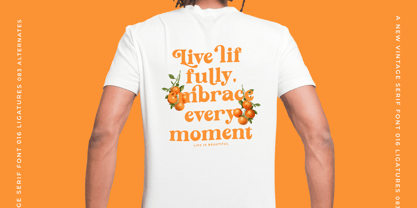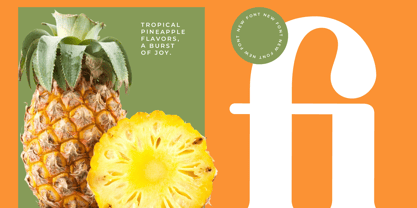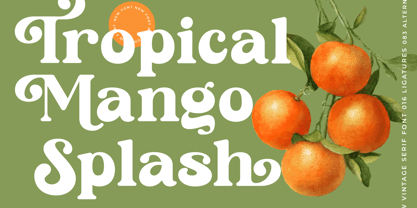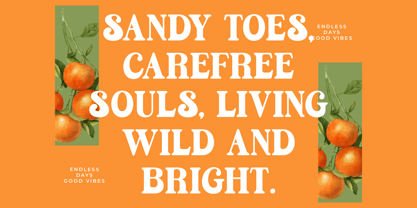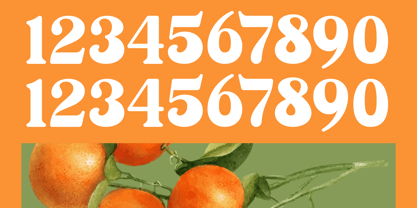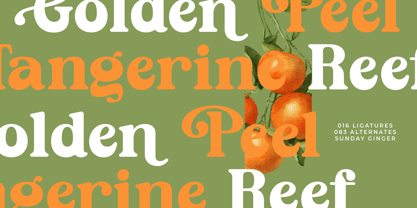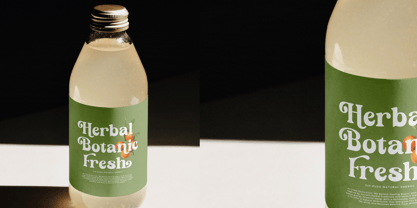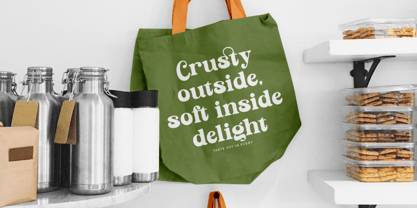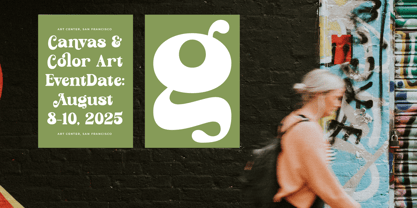
Sunday Ginger
The Sunday Ginger Font Family was designed by Heru Utama Putra and published by Timelesstype Studio. Sunday Ginger contains 2 styles and family package options. More about this family
Sunday Ginger - New Vintage Serif Font , from Timelesstype, Suitable for any projects such as: logos, branding projects, homeware designs, product packaging, mugs, quotes, posters, shopping bags, t-shirts, book covers, name card, invitation cards, greeting cards, label, photography, watermark, special events, and all your other luxury and beautiful projects that need a Luxury Serif taste.
Sunday Ginger